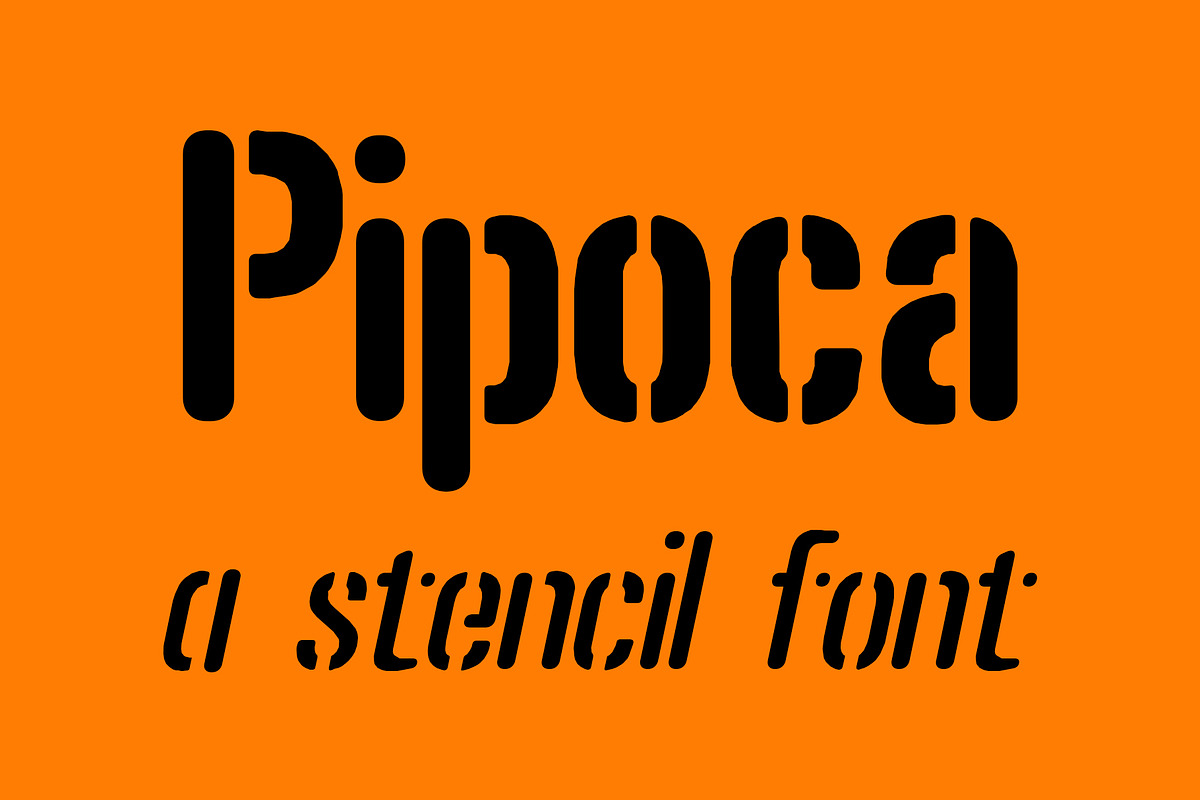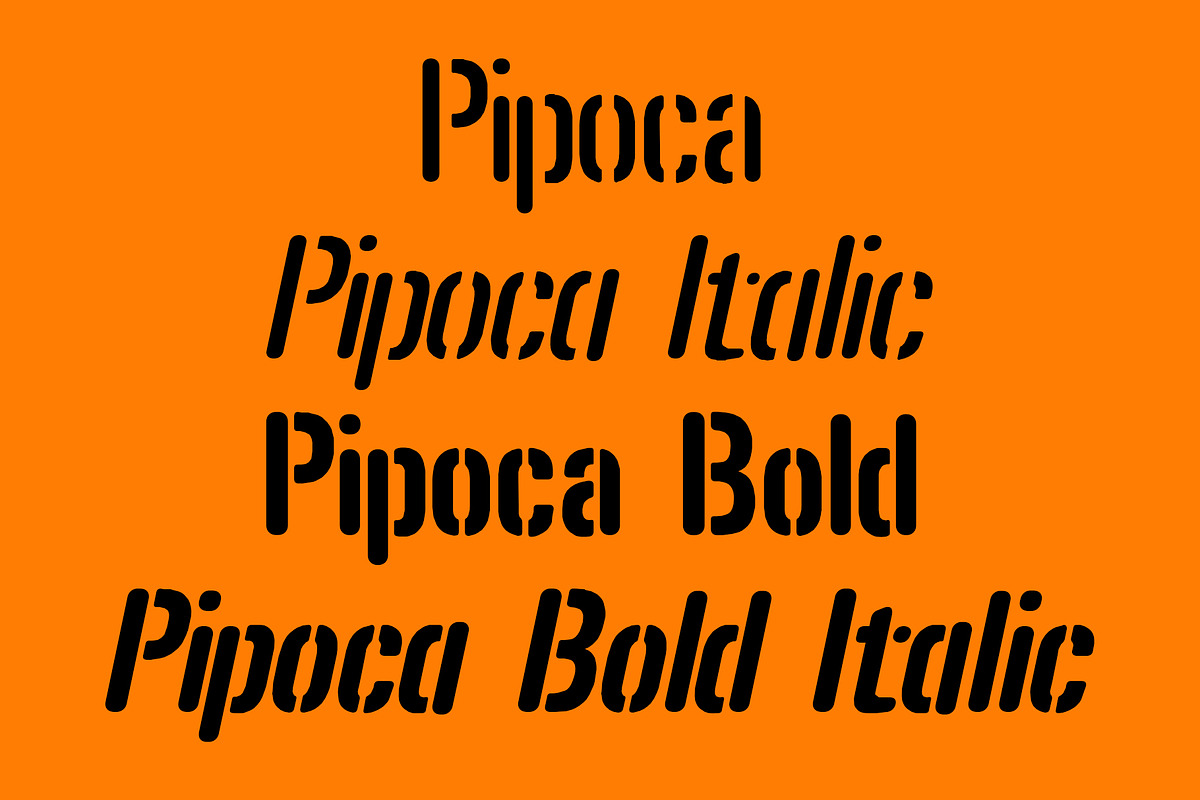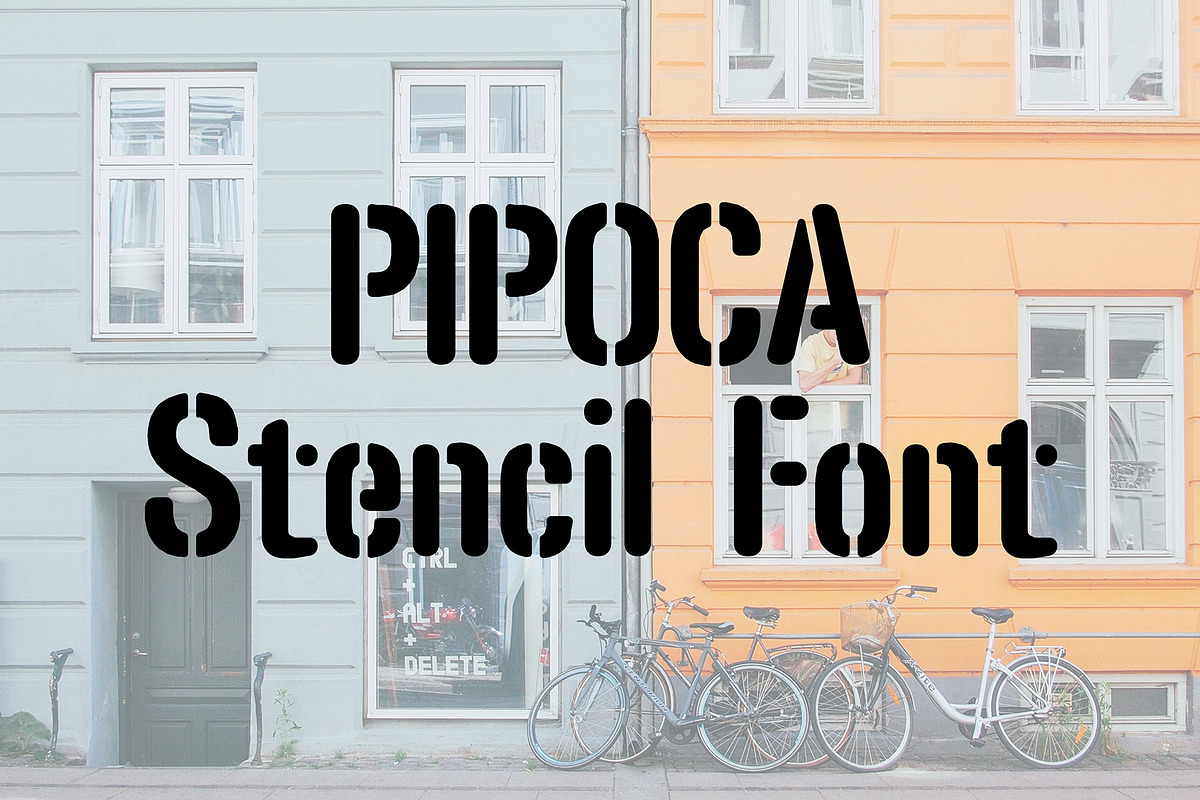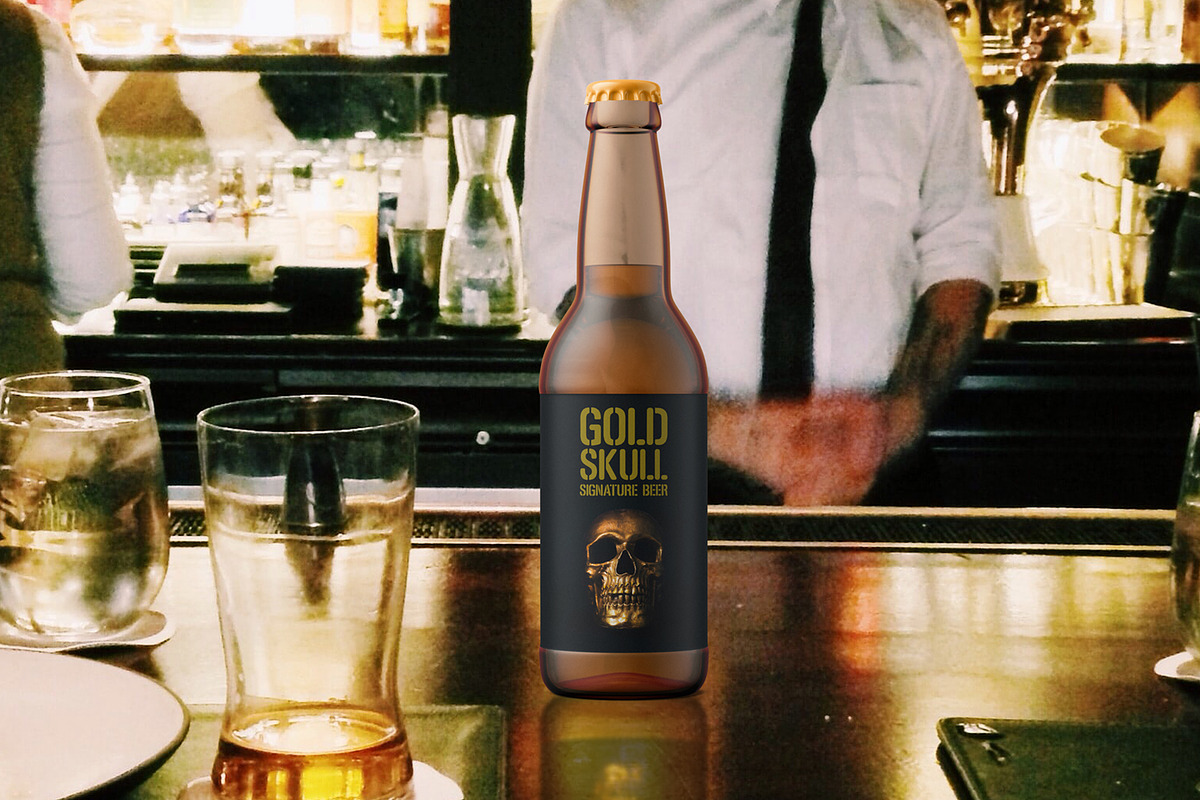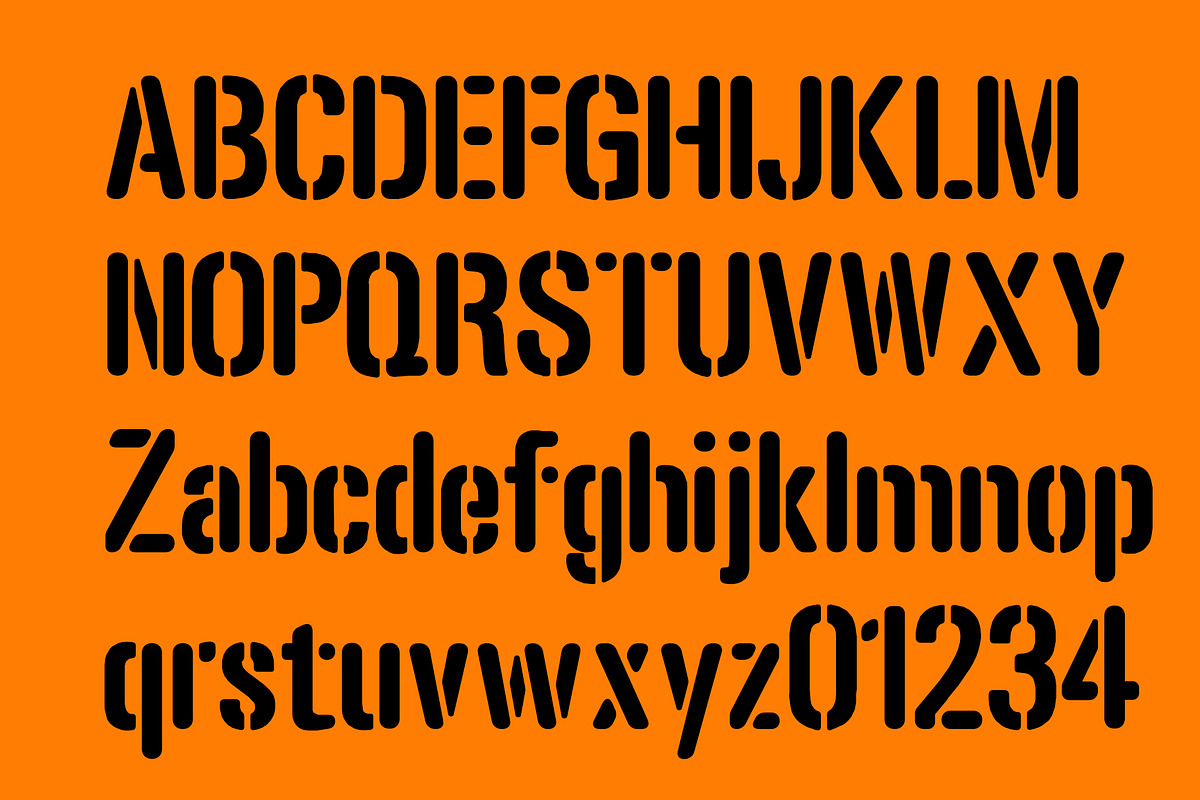
Pipoca - a stencil font
Pipoca is a stencil display font. Soft and delicate it makes a statement when used. Pipoca means popcorn in Portuguese. It has a subtle roughness that shows better at large point sizes.
Pipoca - a stencil font by Minhocossauro Emporium fits naturally into Branding, posters, packaging, typography.